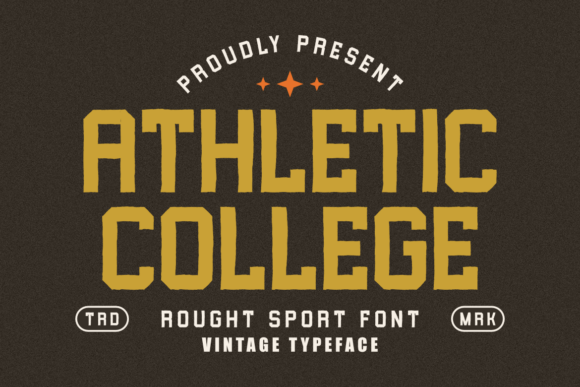
The Winning Font: How Athletic College Can Elevate Your Sports-Themed Designs
I’ll never forget the time I was working on a project for a local sports team, tasked with creating a logo that exuded energy, strength, and a hint of nostalgia. As I scrolled through font after font, nothing seemed to capture the essence I was looking for – until I stumbled upon Athletic College. This robust, rough sport font has a distinct vintage aesthetic that instantly resonated with me, and I knew I had found the perfect fit. In this article, I’ll share my experience with Athletic College, its features, and how you can leverage its power in your designs.
A Honest Review: The Good and the Great
Athletic College has quickly become a staple in my design toolkit, and for good reason. Here are some aspects that I absolutely love:
• ✨ Instantly recognizable vintage vibe: Athletic College’s weathered texture and bold presence immediately evoke a sense of classic athletic department logos and collegiate branding.
• ✅ Versatility: This font is perfect for a wide range of applications, from team merchandise and event posters to retro-inspired logos and sports-related designs.
• 💪 Robust and energetic feel: Athletic College’s sturdy texture and bold presence make it an excellent choice for designs that require a strong, authentic vintage sport vibe.
Of course, no font is perfect, and Athletic College has a few minor quirks:
• 🤔 Limited use in body text: Due to its bold and weathered texture, Athletic College is best suited for headlines and titles. It may not be the best choice for lengthy body text.
• ⚠️ Glyph support: While Athletic College has a wide range of glyphs and OpenType features, some users may find that certain characters or special glyphs are not supported.
The Designer Inspiration Behind Athletic College
Athletic College was designed with the goal of capturing the essence of classic athletic department logos and collegiate branding. Its creator drew inspiration from vintage sports equipment, classic team logos, and the nostalgic feel of old-school athletic typography. The result is a font that exudes energy, strength, and a sense of competition.
What type of designs is Athletic College best suited for? Athletic College is perfect for sports-related designs, team merchandise, event posters, retro-inspired logos, and any project requiring a strong, authentic vintage sport vibe.
Does Athletic College support OpenType features? Yes, Athletic College has a range of OpenType features, including glyphs and stylistic alternates, which can be accessed in compatible design applications.
Is Athletic College suitable for body text? While Athletic College can be used for short paragraphs, it’s best suited for headlines and titles due to its bold and weathered texture.